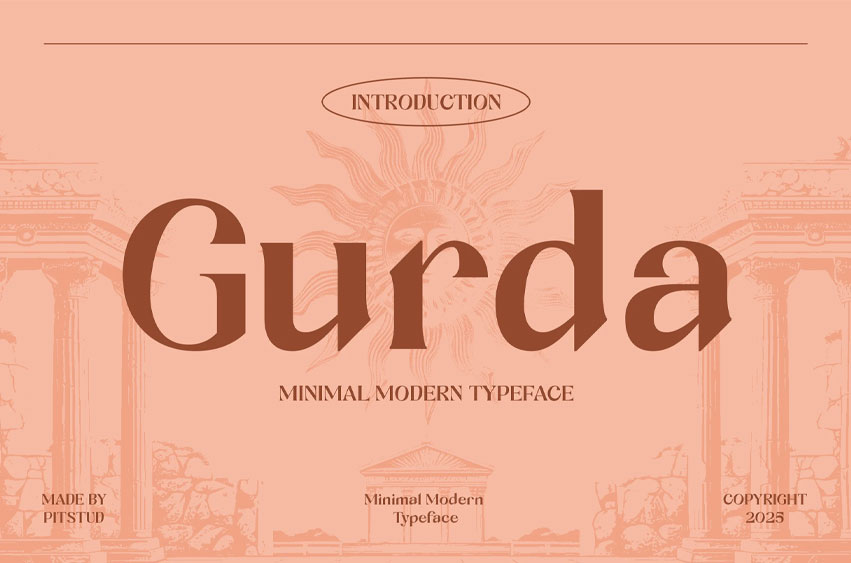
Gurda Font is a premium Modern Clean Serif font designed to bring elegance, bold sophistication, and timeless clarity to your branding and design projects. Crafted with sleek serif proportions and refined modern details, this font offers a stylish, professional, and versatile touch for logos, editorials, fashion branding, and digital applications.
Perfect For Whether you’re working on a luxury brand, corporate identity, editorial magazine, or fashion logo, Gurda will give your design a modern and refined edge. It’s ideal for use in high-end logos, advertising layouts, packaging, posters, wedding invitations, and elegant social media graphics.
Font Features:
• Modern & Clean Design: Offers clear readability with contemporary serif styling that works across print and digital formats.
Gurda combines sharp, clean lines, balanced contrast, and elegant serif detailing to create a strong visual impact while maintaining clarity. Whether you are designing for luxury branding, corporate projects, editorial layouts, or fashion-forward campaigns, this font adapts seamlessly and enhances the sophistication of your work.
• Luxury Branding: Elevate your upscale brand identity with sleek serif typography.
• Corporate Identity: Build trust and professionalism in logos, brochures, and brand guides.
• Editorial & Magazines: Create impactful headlines and stylish layouts.
• Fashion & Beauty: Perfect for elegant fashion logos, product packaging, and advertising.
• Wedding & Event Design: Add timeless elegance to invitations and stationery.